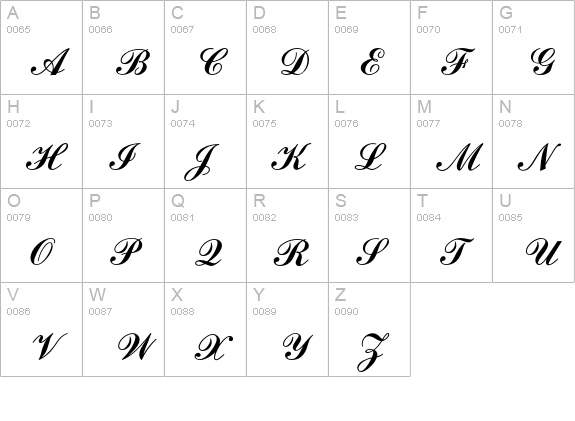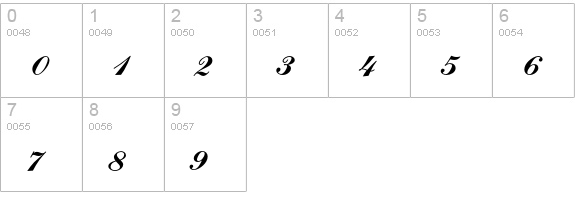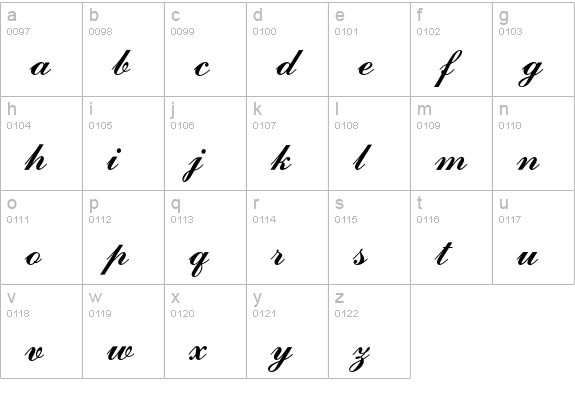
Commercial Script Std font is a timeless and elegant typeface that exudes sophistication and professionalism. With its flowing cursive style and subtle flourishes, this font is perfect for adding a touch of class to any design project. Whether you're creating a logo, invitation, or advertisement, Commercial Script Std will elevate your work to the next level. The best part? Commercial Script Std is completely free to download at FontsMarket.com. So you can add this beautiful font to your collection without breaking the bank. Don't miss out on the opportunity to enhance your designs with the beauty and versatility of Commercial Script Std. Download it today and see the difference it can make in your projects!